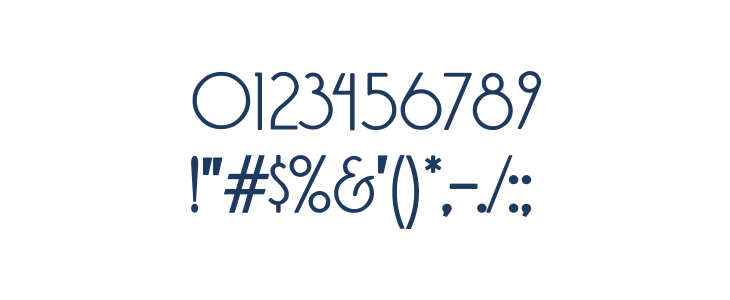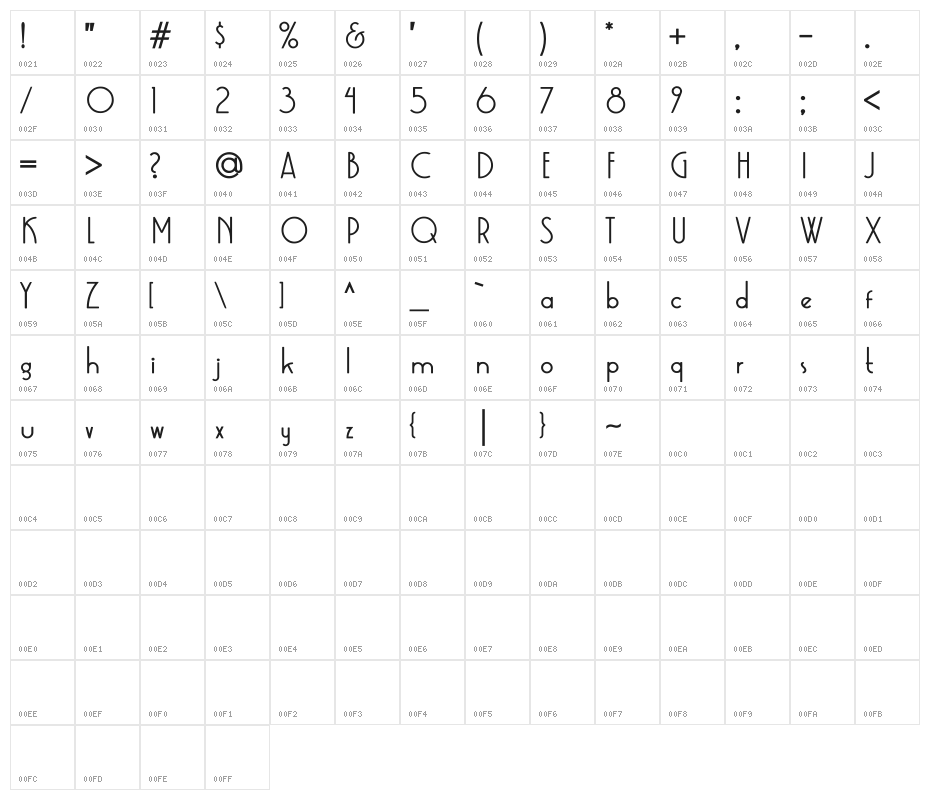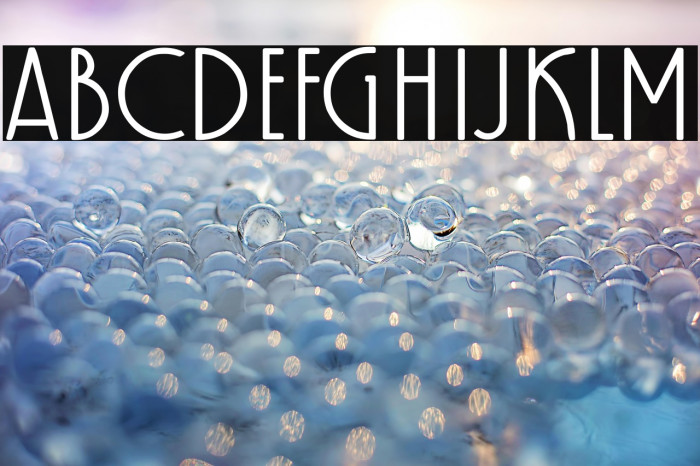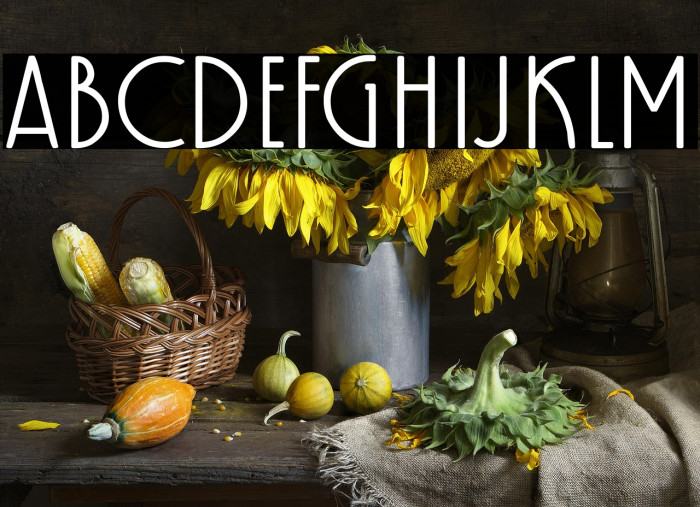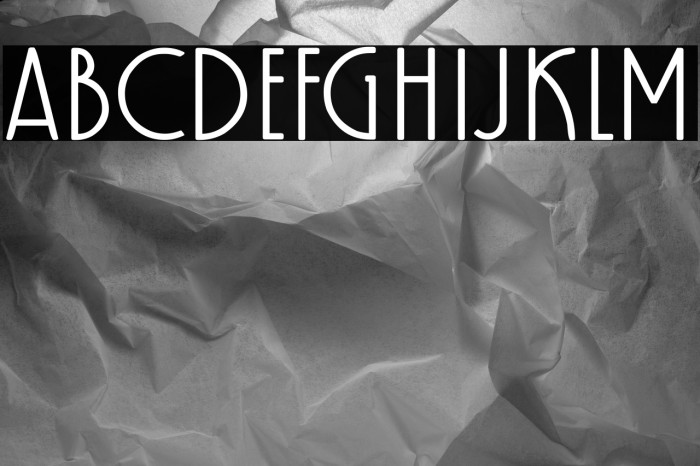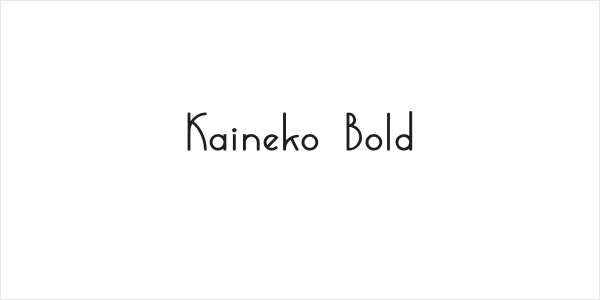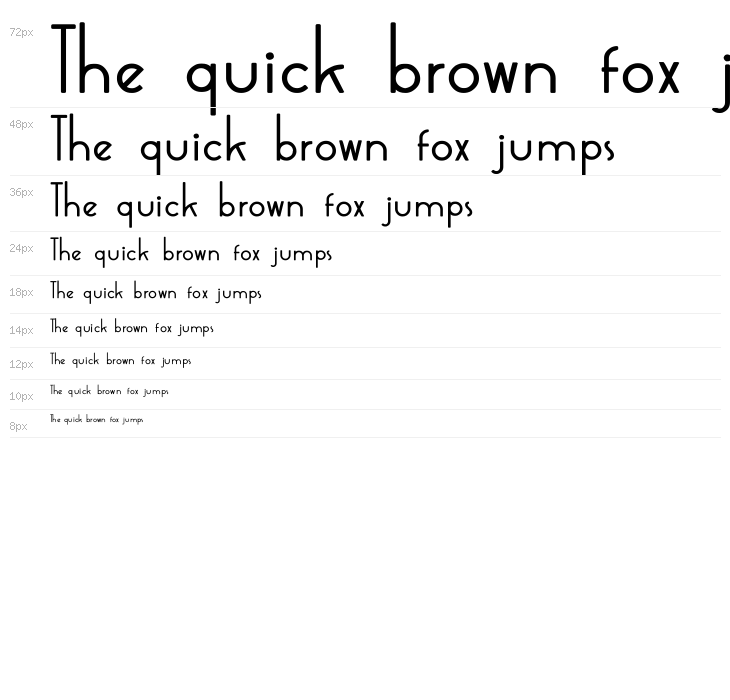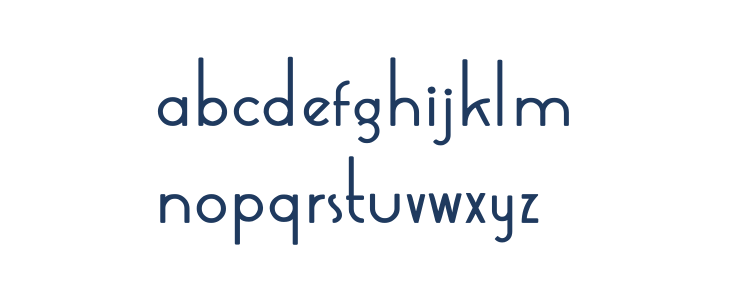
Kaineko Bold Font
Kaineko Bold Description
This font features a clean and modern aesthetic with a geometric influence. The characters are tall and slender, with a consistent stroke width that gives it a sleek and elegant appearance. The uppercase letters are slightly taller than the lowercase, maintaining a uniform height across the board. The rounded edges of the characters add a touch of softness, while the overall design remains minimalistic and contemporary. The numerals are well-proportioned, aligning seamlessly with the alphabetic characters. Special characters are designed with the same attention to detail, ensuring a cohesive look throughout.
| Proposed Projects | Ideal for branding, editorial design, and modern web design projects. |